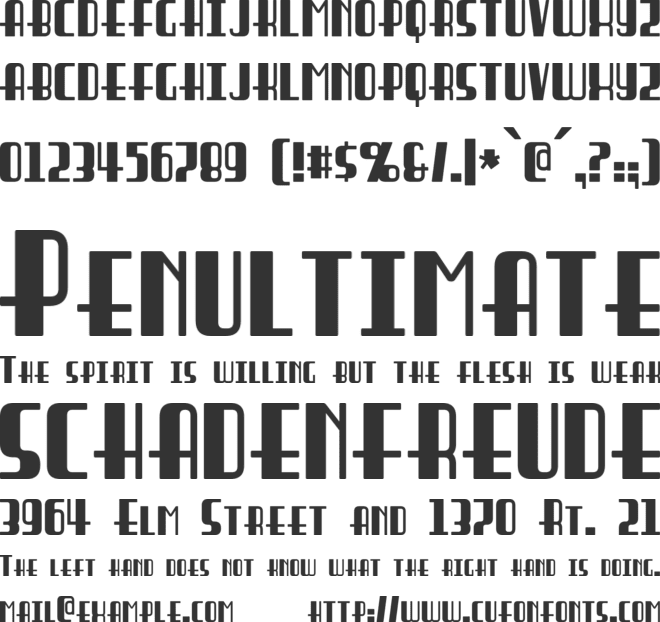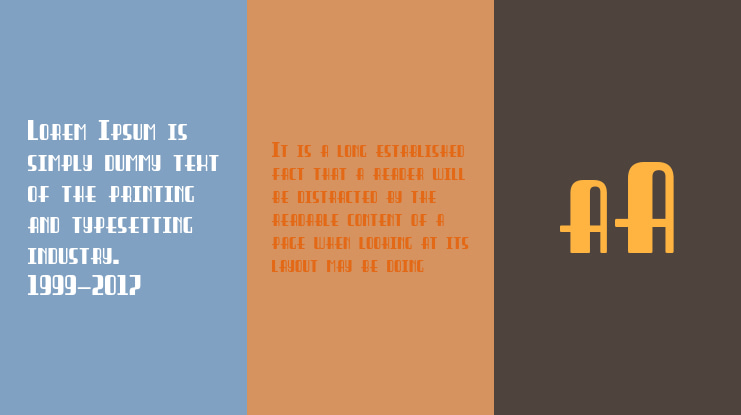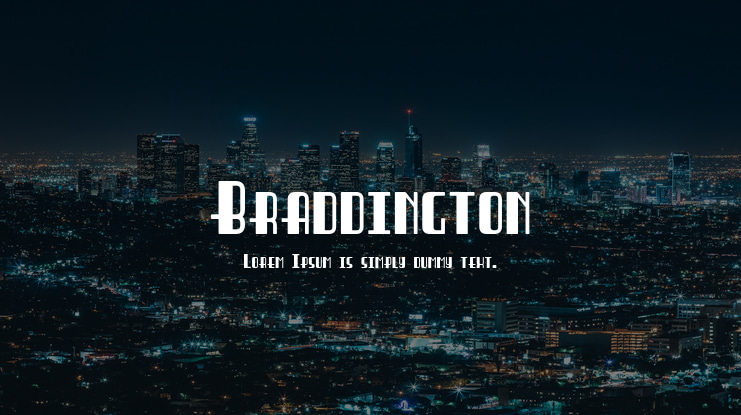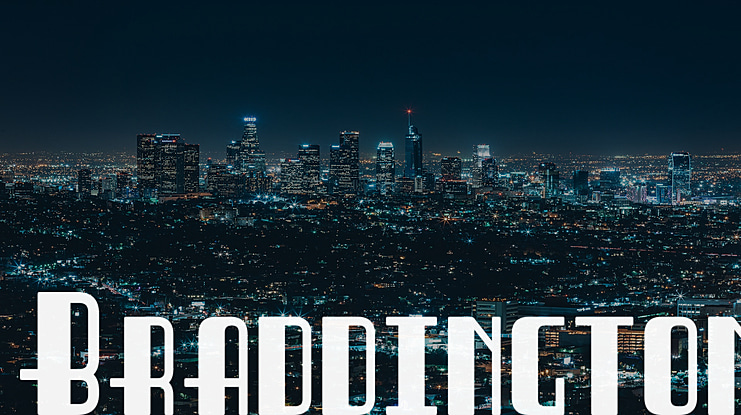
Braddington Font Family
Neale Davidson
This techo/art-deco font was inspired by some early science-fiction movie marquees and other pulp-era headlines. Includes full alphabet, extended punctuation, and Euro. Includes italic version.